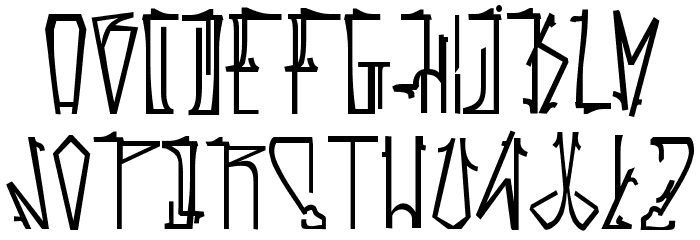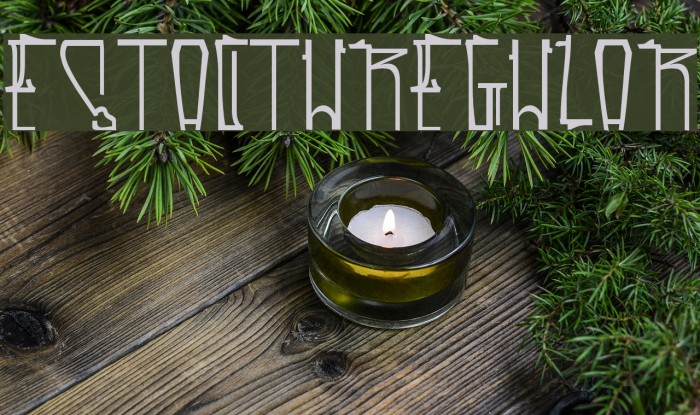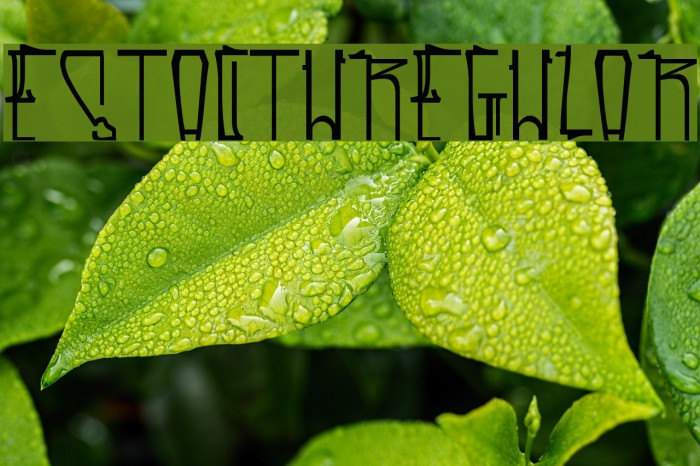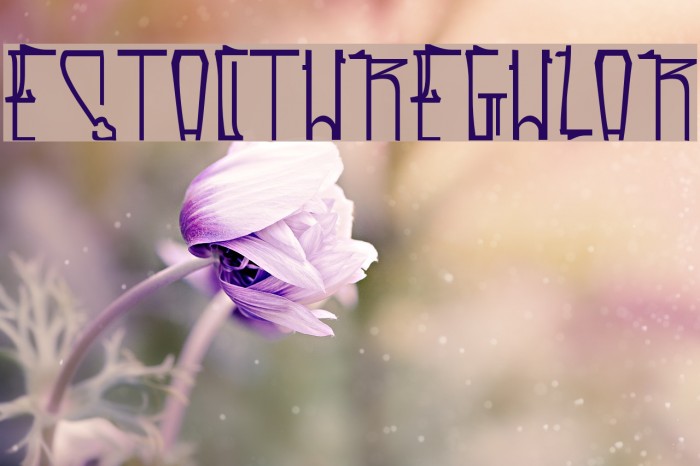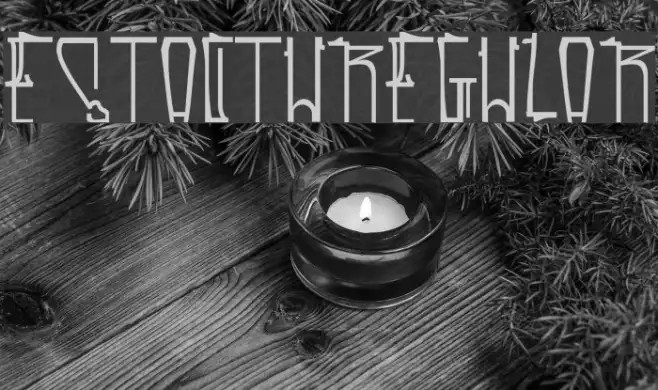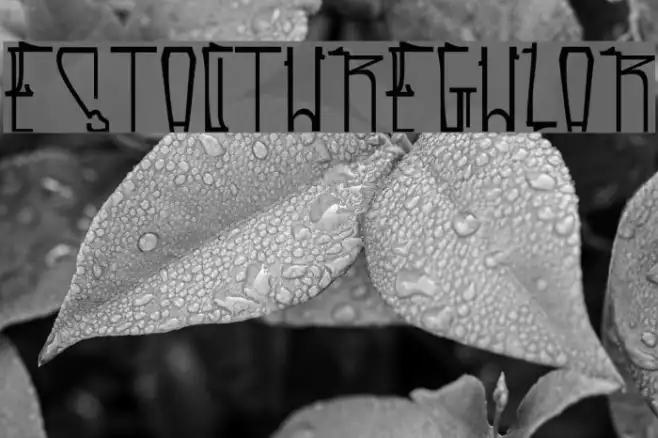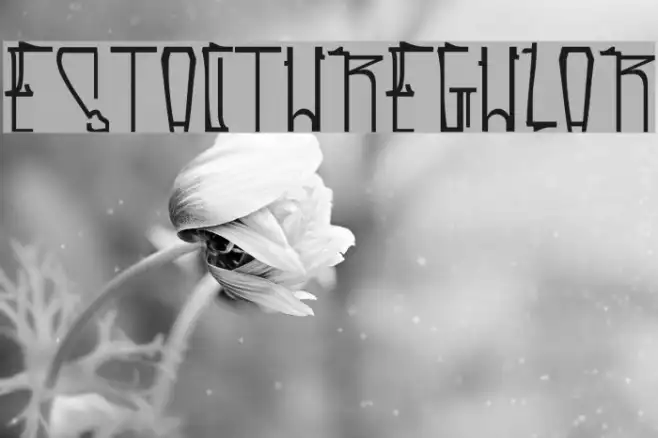
EstactuRegular Font
This font features a highly stylized and decorative design with intricate details that give it a unique and artistic appearance. The characters are composed of bold, angular lines with sharp edges and unexpected curves, creating a sense of movement and dynamism. The uppercase letters are particularly striking, with each character having its own distinct flair, while the lowercase letters maintain a consistent style. The numbers and special characters follow the same design principles, ensuring a cohesive look across all elements. This font is ideal for projects that require a bold and eye-catching aesthetic.
A decorative and artistic font with bold, angular lines and intricate details.
- Proposed Projects: Ideal for album covers, posters, branding, and any project needing a bold artistic touch.